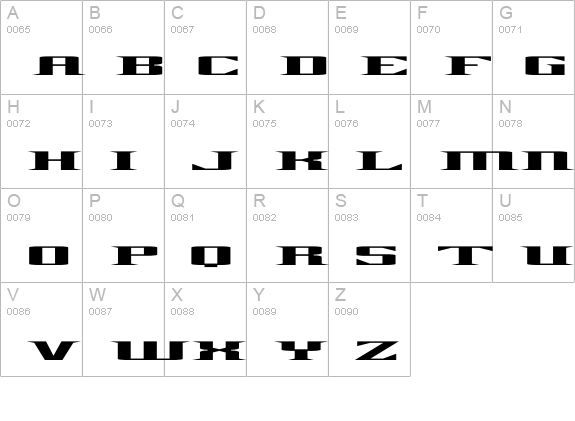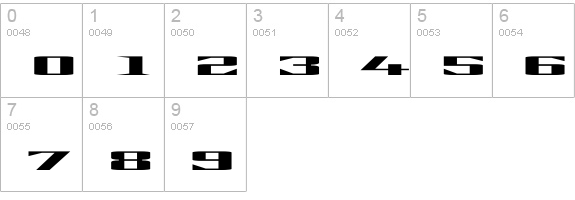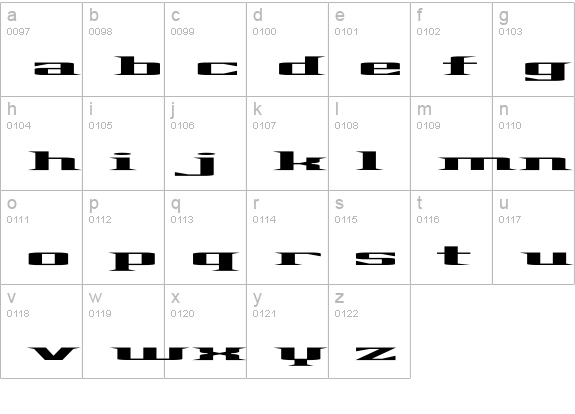
Gadzooks Font Details
Introducing Gadzooks font - a captivating and versatile typeface that is sure to make a lasting impression! With its unique and quirky design, Gadzooks is perfect for adding a touch of fun and creativity to any project. Gadzooks font features intricate and playful letterforms, with each character expertly crafted to evoke a sense of whimsy and charm. Whether used for headlines, logos, posters, or any other creative endeavor, this font is guaranteed to capture attention and leave a lasting impact. But the best part? Gadzooks font is completely free! That's right, you can now download this incredible font without spending a dime. Thanks to FontsMarket.com, you can unleash your creativity and explore the endless possibilities of Gadzooks font without any cost. With its freely available download, Gadzooks font is easily accessible to designers, artists, and anyone looking to add a touch of originality to their work. So why wait? Don't miss out on the opportunity to enhance your designs with this enchanting typeface. So whether you're designing a children's book, creating a playful logo for a brand, or simply looking to add a touch of whimsy to your next project, Gadzooks font is the perfect choice. Download it now for free at FontsMarket.com and let your imagination run wild!